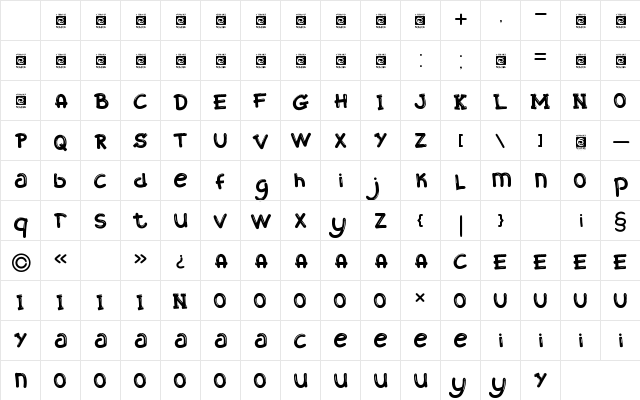
Complete Mixy Missy Personal Use Regular glyph index. Displaying only characters natively supported by Mixy Missy Personal Use Regular font.
Mixy Missy Personal Use is a composed and adaptable typeface that performs quietly and consistently across a wide range of design contexts.